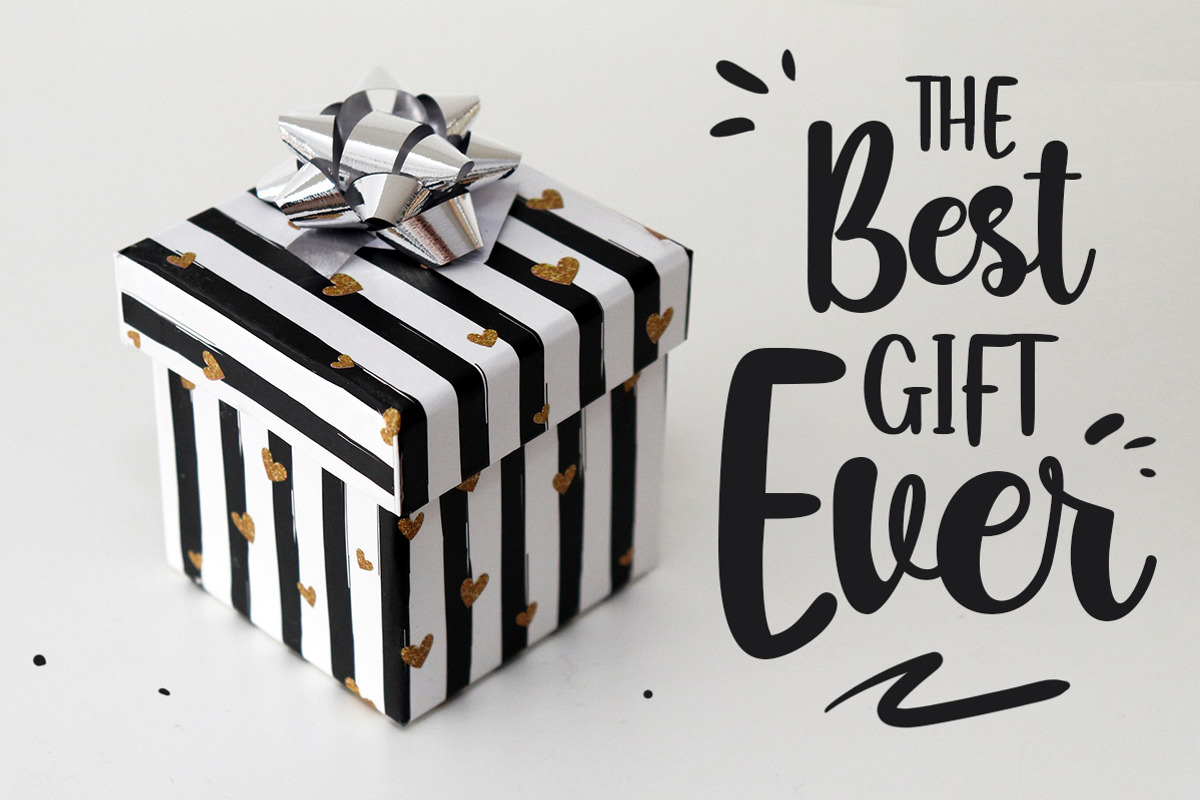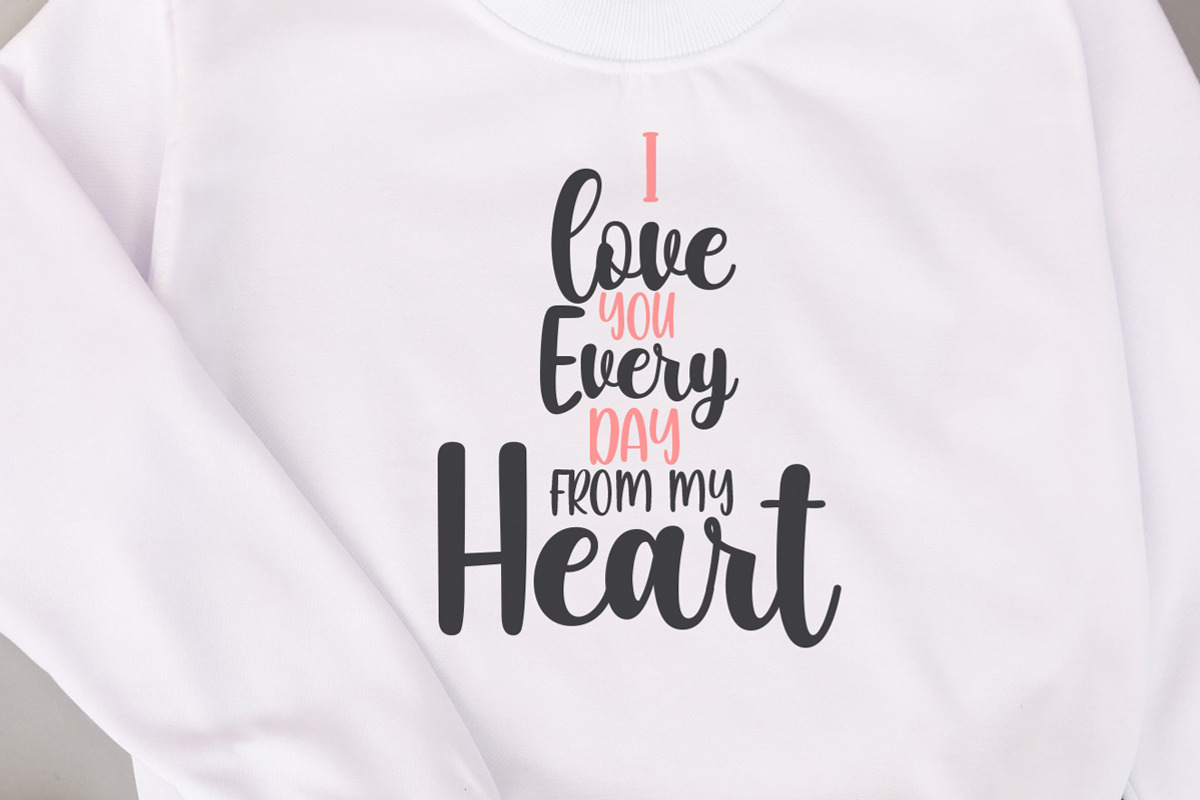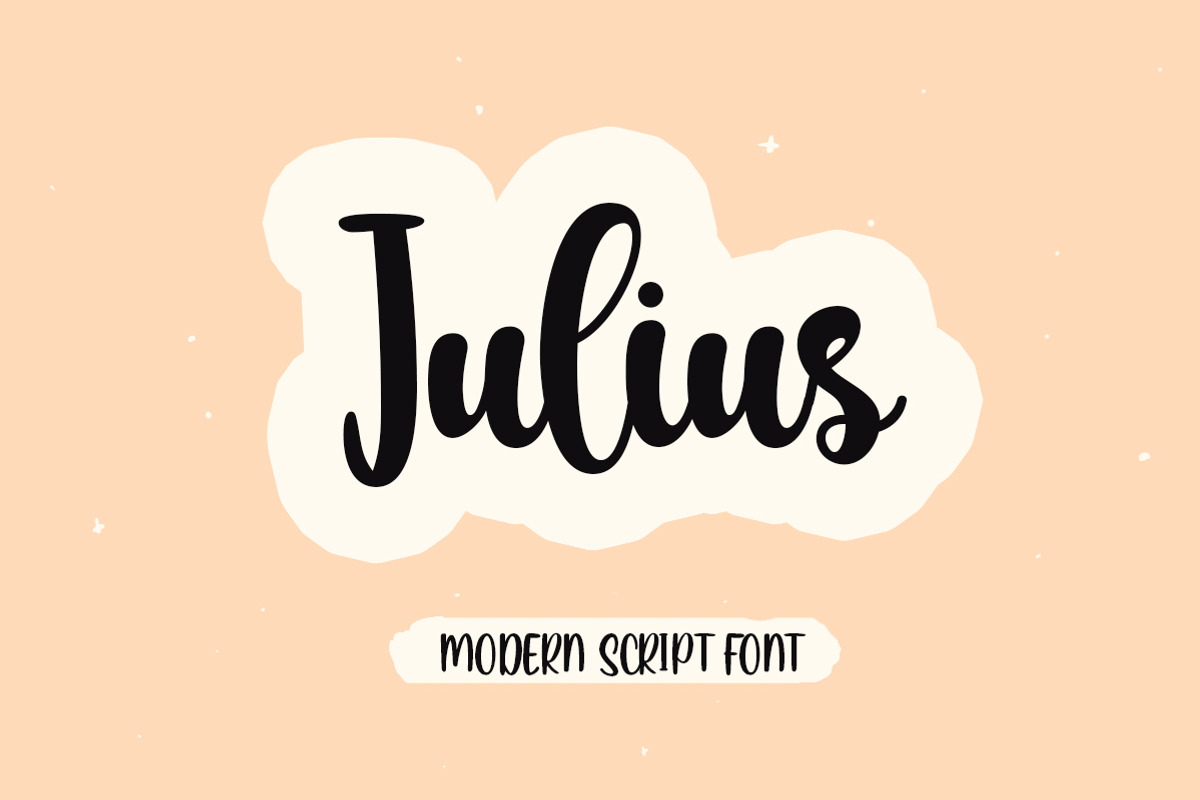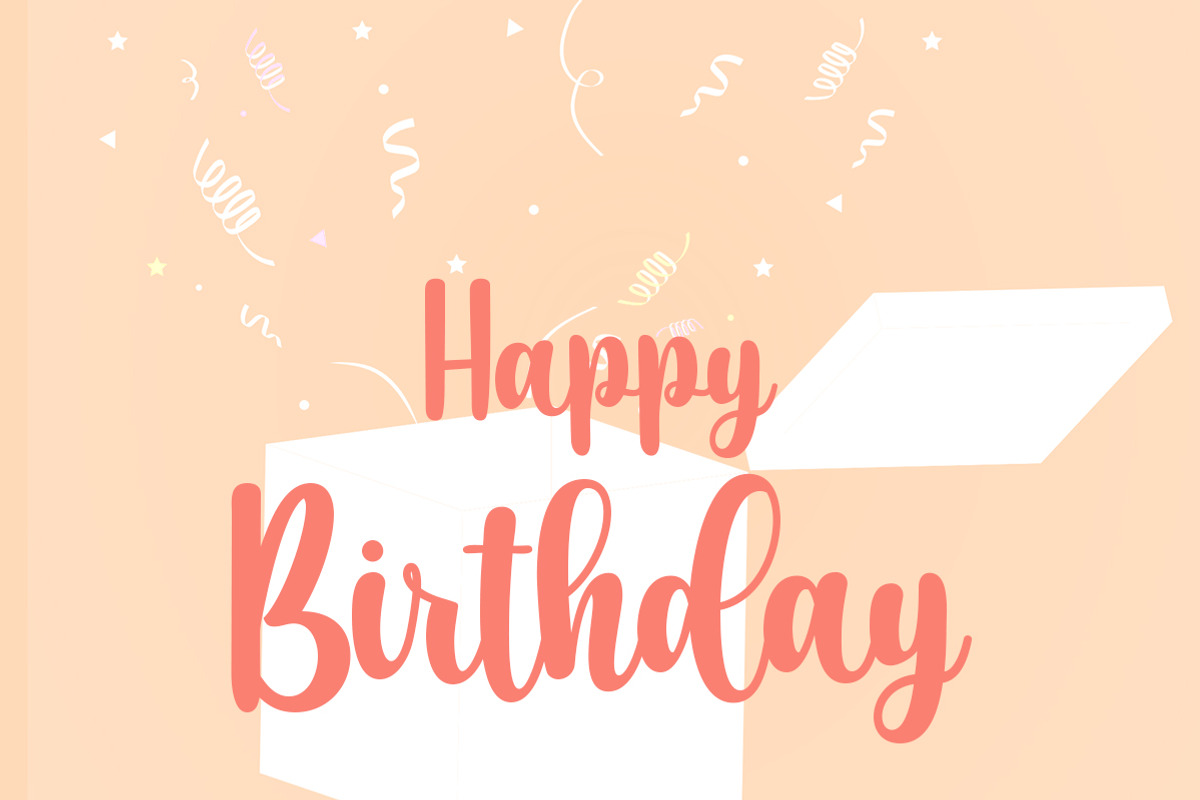
Julius - Modern Script Font
Julius is a beautiful and bold script font. It has a classy, elegant and modern look that can be used for logos, branding, invitations, stationery, wedding designs, social media posts, and much more!
This gorgeous font includes all lowercase and uppercase characters, numbers, punctuation, alternate ,an array of standard ligatures and a selection of international characters as well (please type in the preview below to see if I have what you need!)